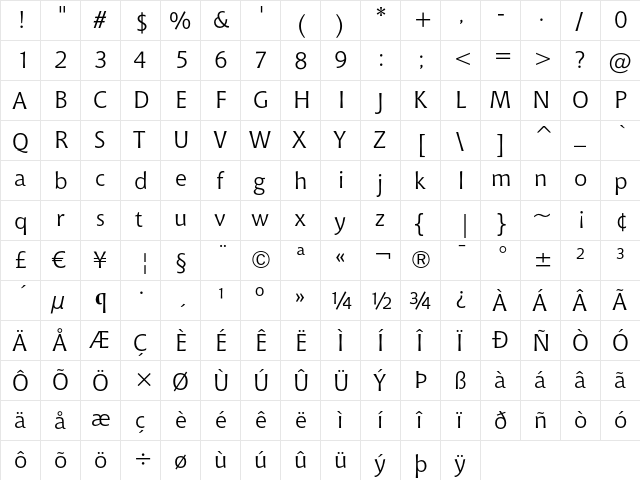
Bitstream Chianti Regular Font Preview
Bitstream Chianti Regular
Bitstream Chianti Regular Font Details
Design Context for Bitstream Chianti Typeface
Bitstream Chianti takes a measured approach to typography — its balanced proportions and neutral character make it a reliable workhorse for both digital and print work.
Pro Tip: Use Bitstream Chianti in both headline and body roles to test its range before committing to a single application.